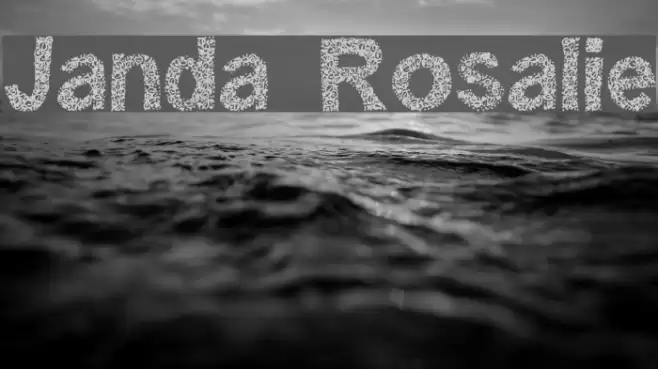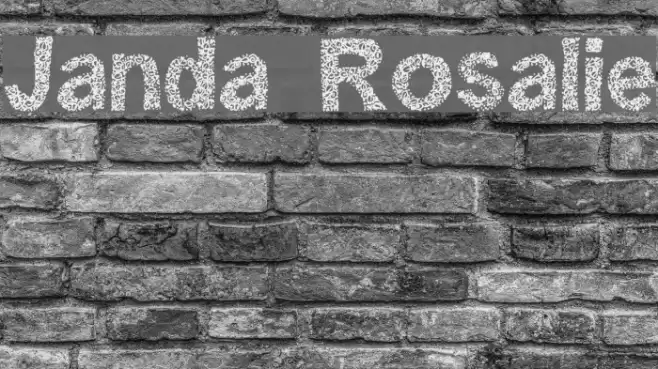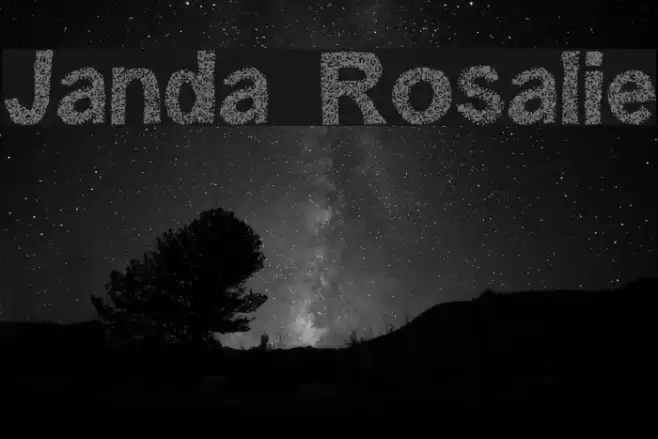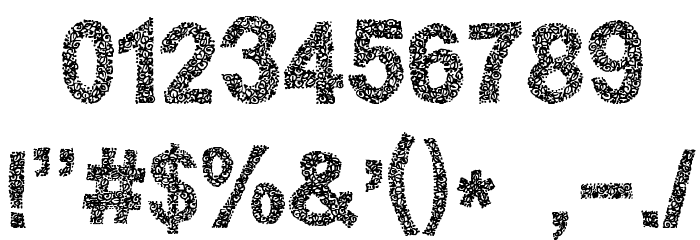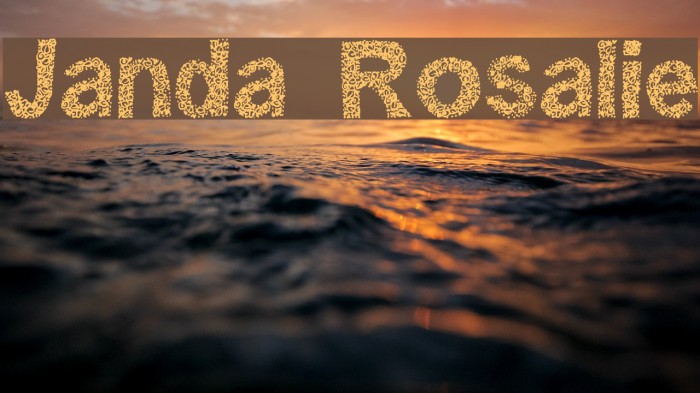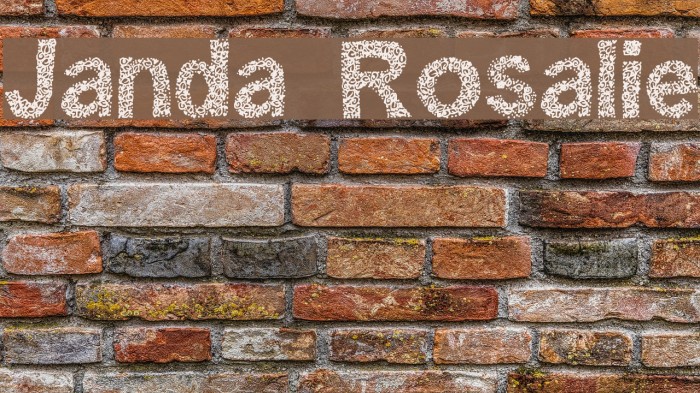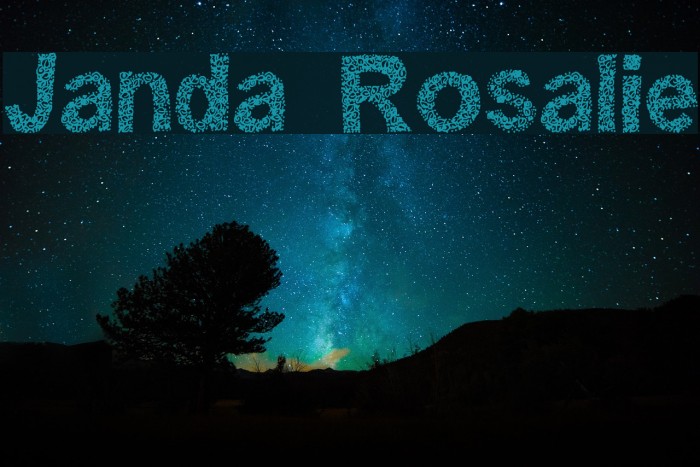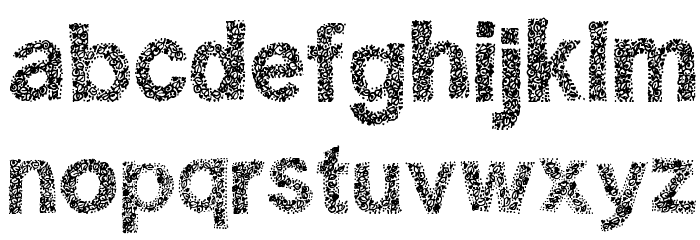
Janda Rosalie Font
Janda Rosalie Description
This font features a unique and playful design, characterized by its textured, dotted pattern that fills each character. The letters are bold and have a hand-crafted feel, making them stand out with a distinctive artistic flair. The uppercase and lowercase letters maintain a consistent style, while the numbers and special characters complement the overall design. This font's decorative nature makes it ideal for creative projects that require a touch of whimsy and originality.
A bold, textured font with a playful, artistic design.
- Proposed Projects: Ideal for greeting cards, posters, children's books, and creative branding projects.